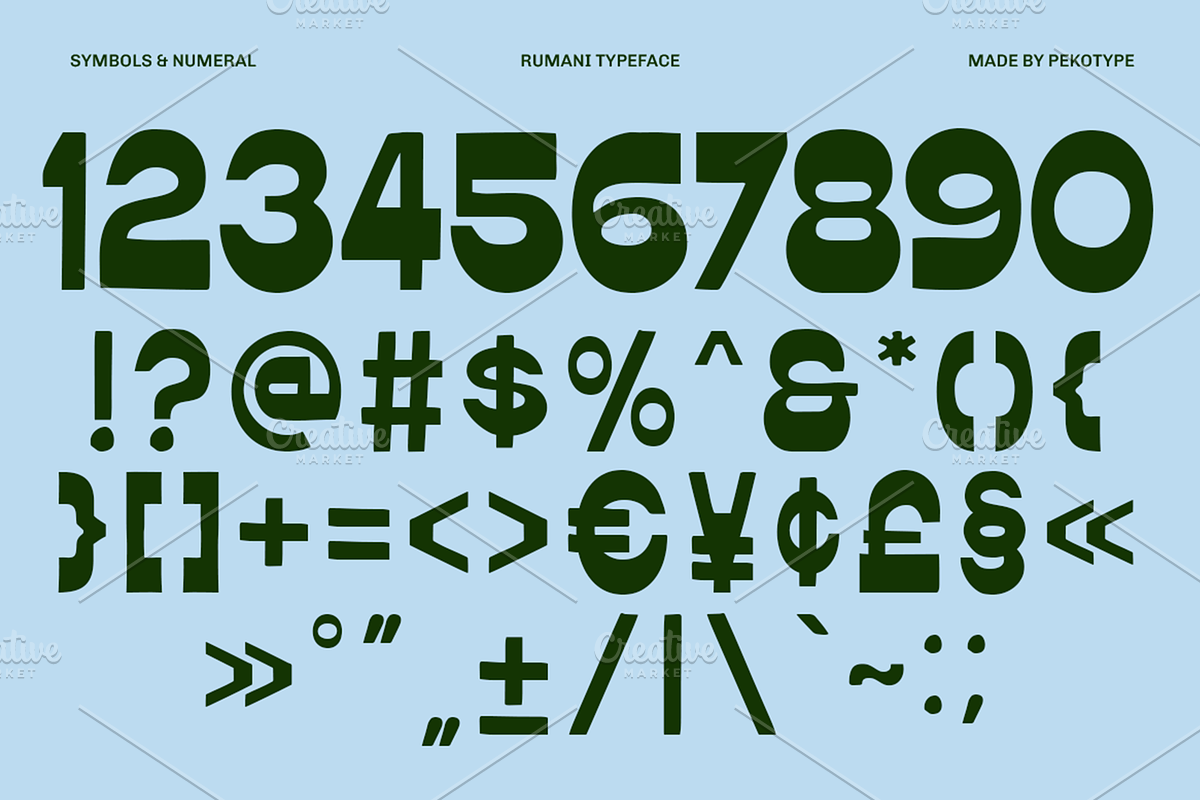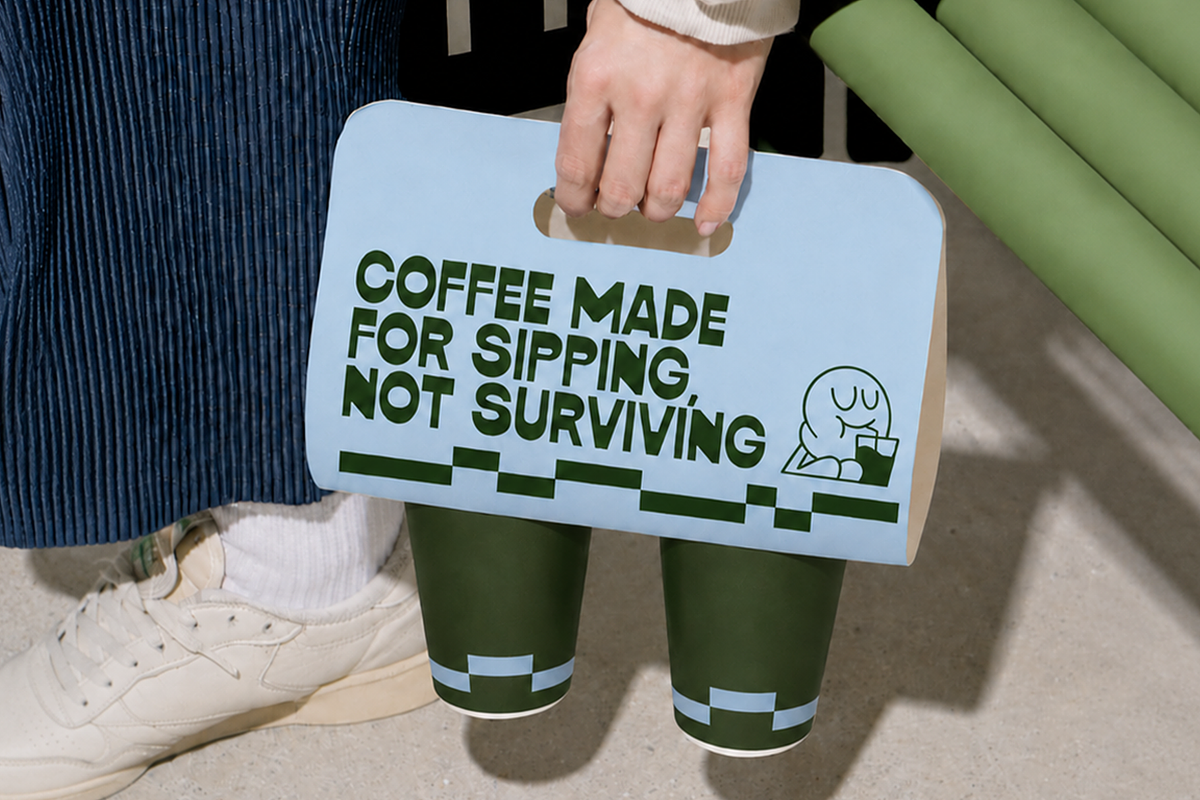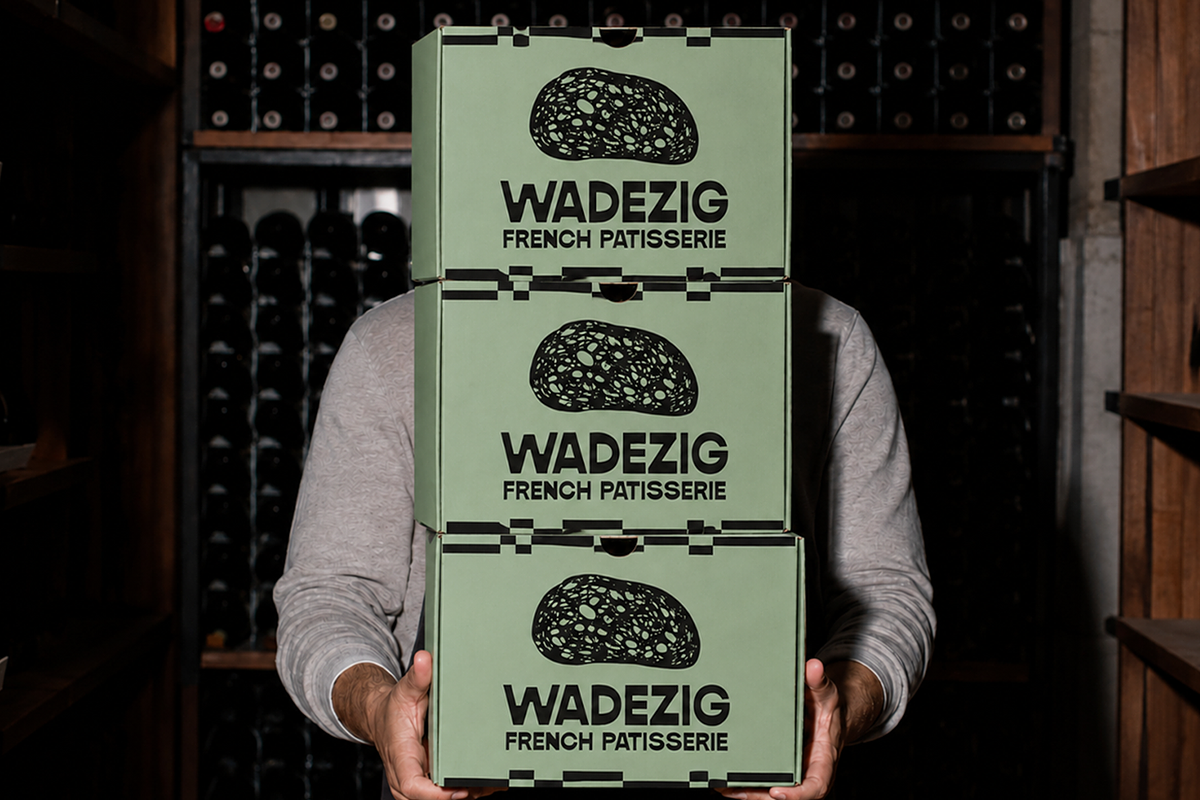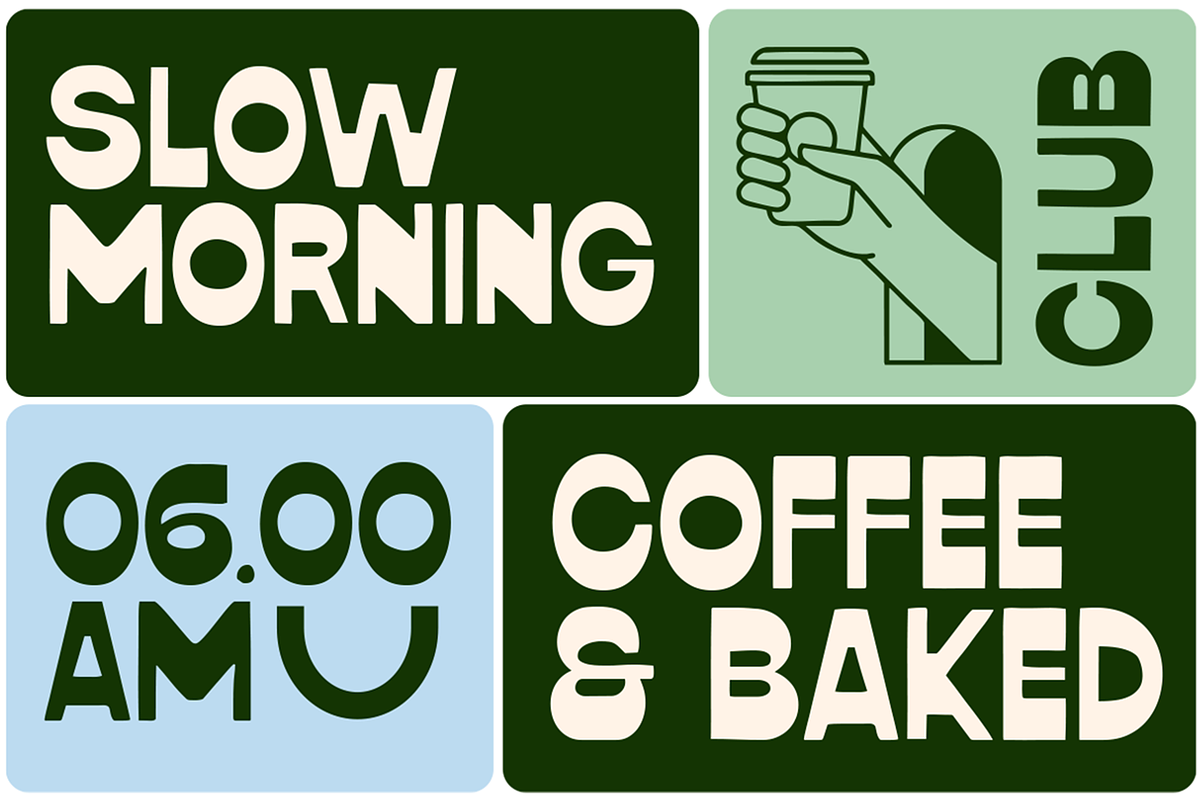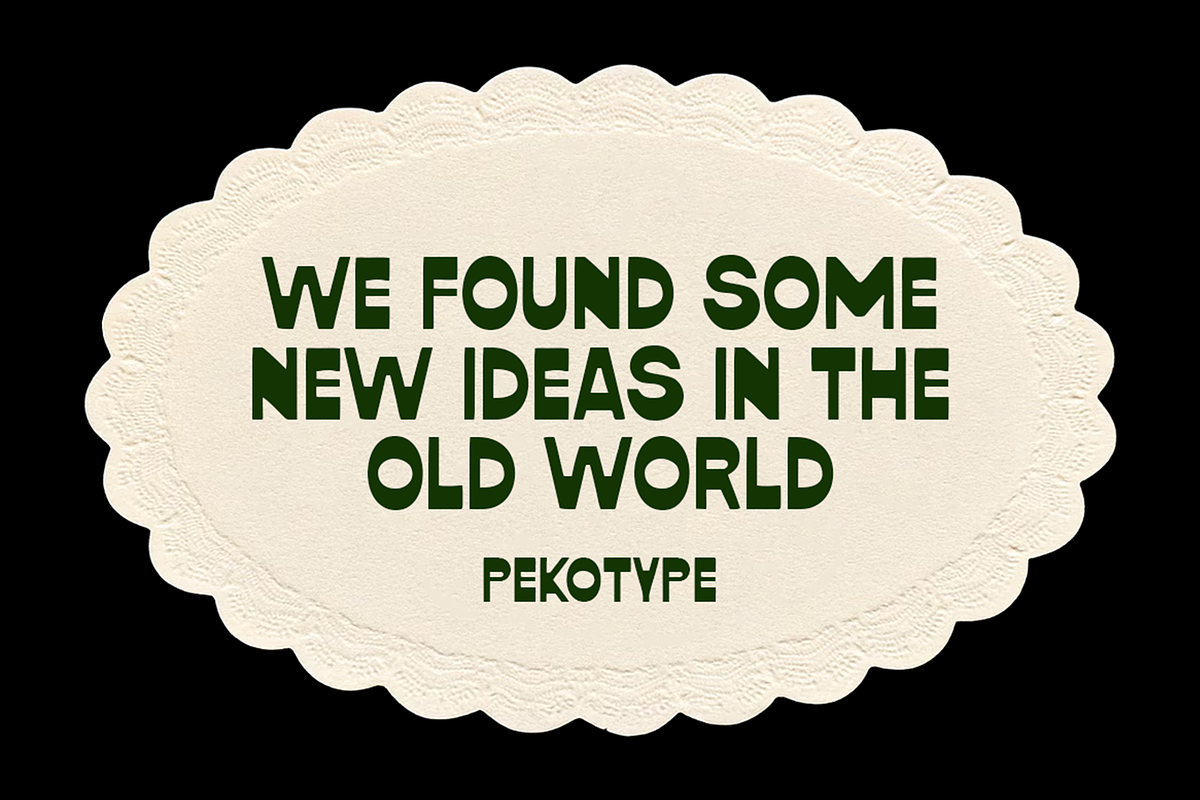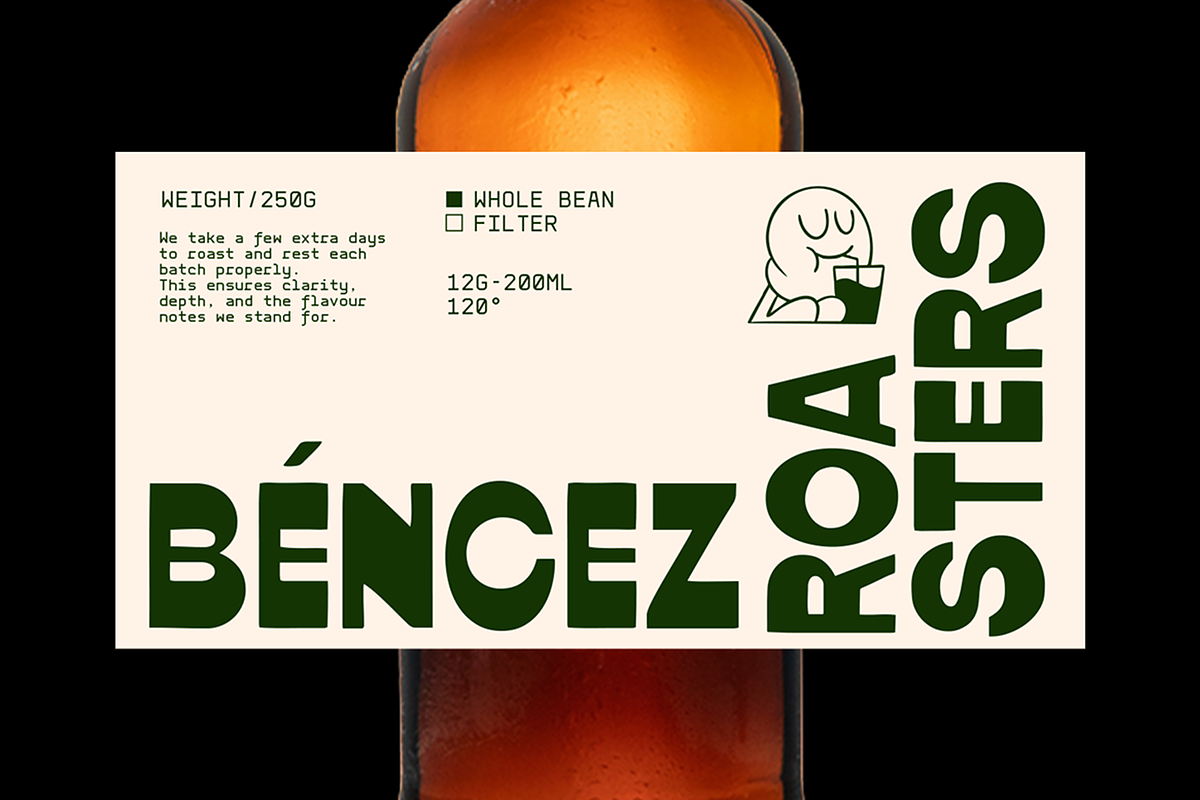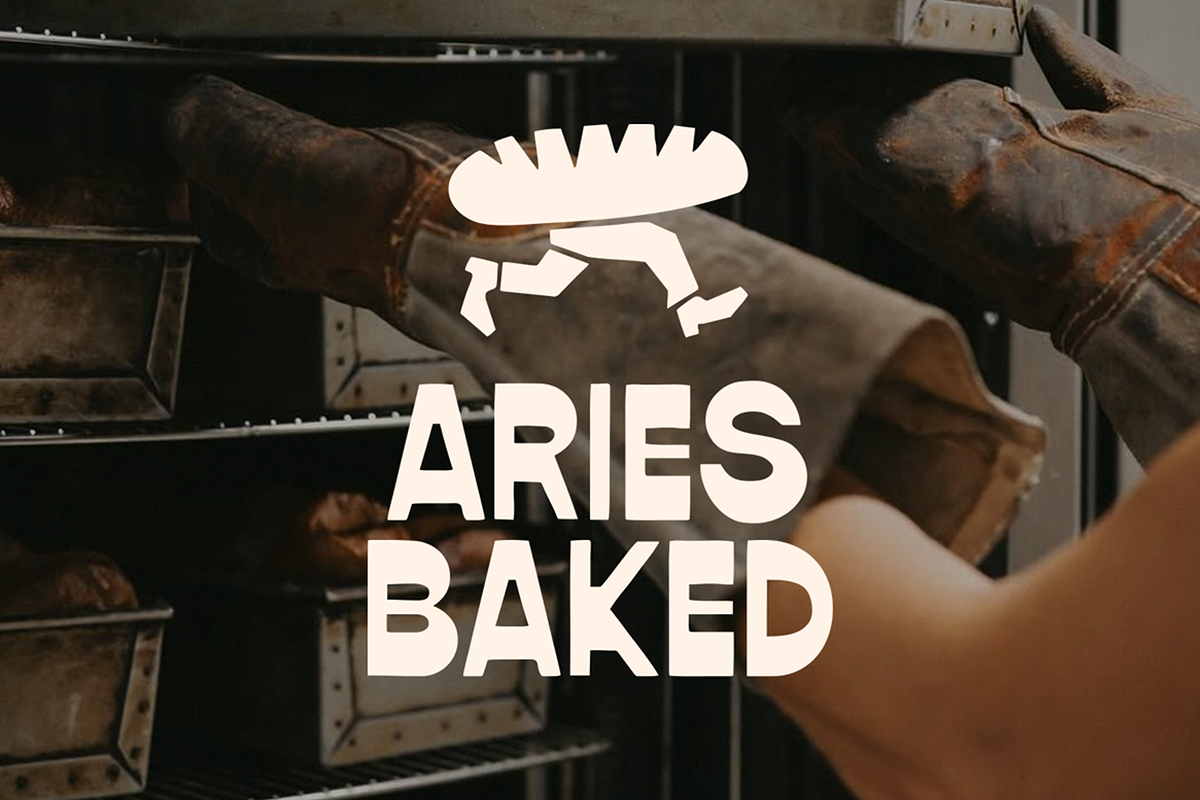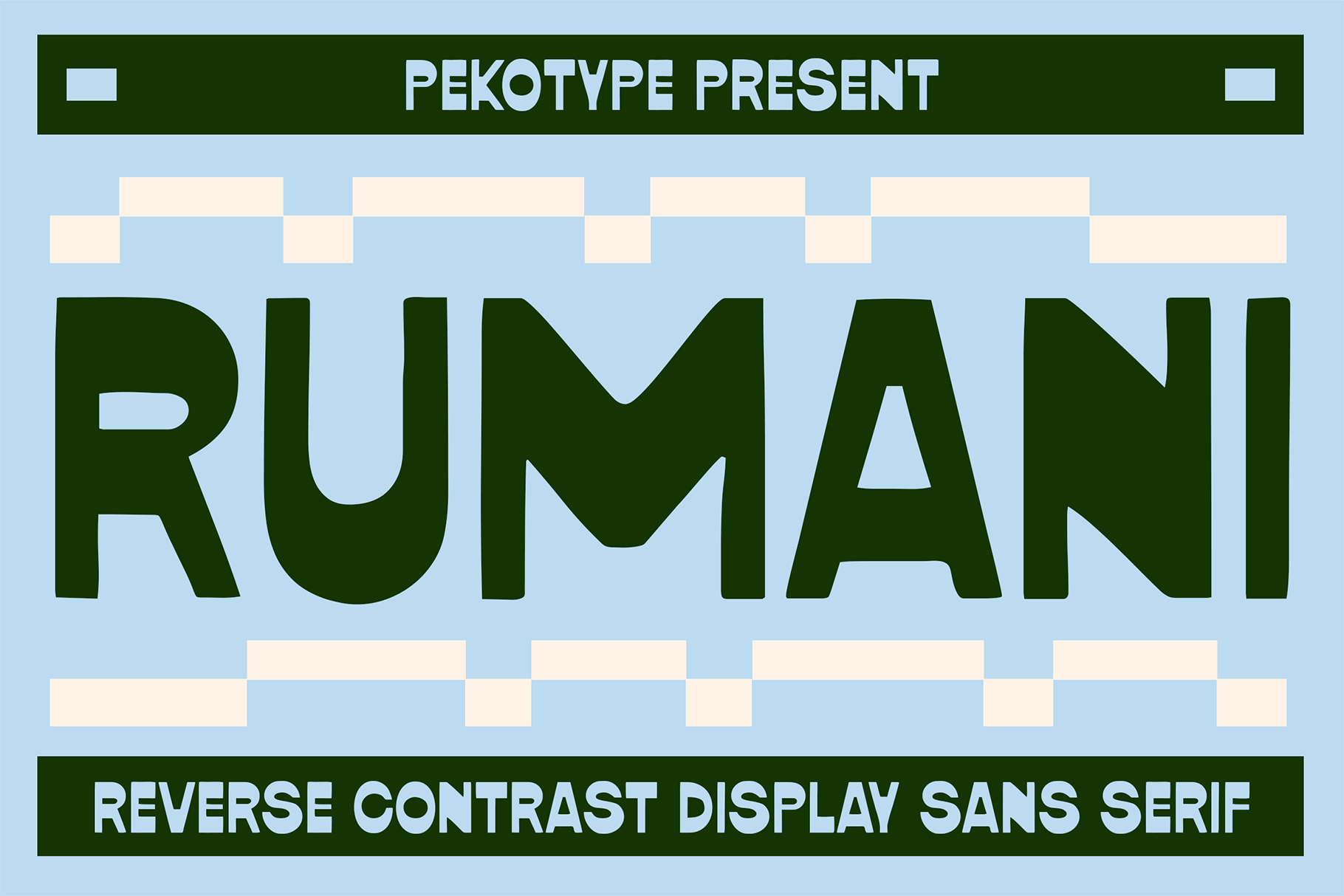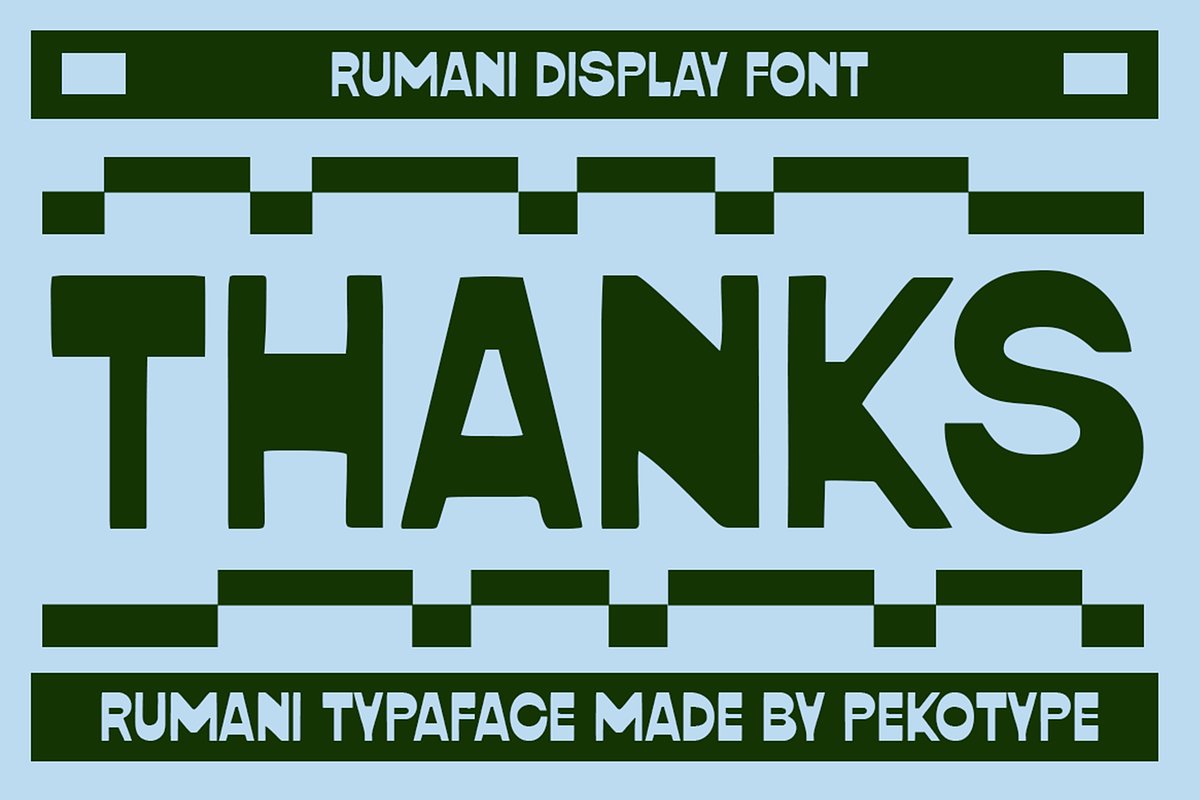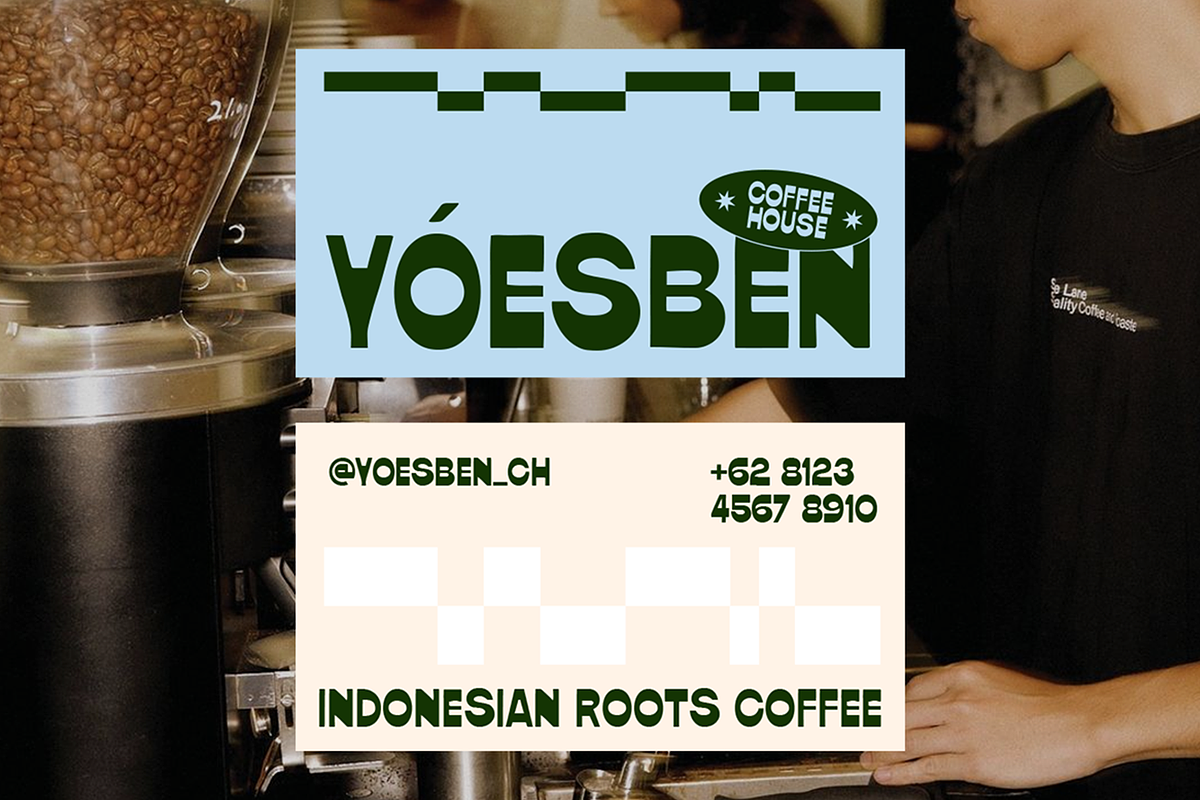
Rumani - Reverse Contrast Font
Rumani is a retro handdrawn reverse contrast font with a bold personality and a playful vintage feel. Its unique letterforms bring a handcrafted look that instantly stands out, making your designs feel fun, expressive, and full of character.
Perfect for café branding, bakery packaging, food labels, logos, posters, merchandise, coffee shops, restaurant menus, social media, stickers, quotes, product packaging, and any creative project that needs a nostalgic display font with a handmade touch.
* All Caps
* Numbers, Symbols, & Punctuation
* Multilingual